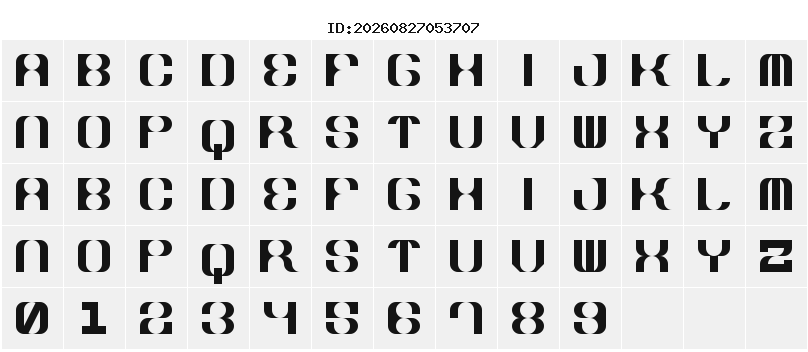
5Winter Sans Preview
• Font Name: 5Winter Sans
• Designer: Noah - 10 year old typomaniac
About 5Winter Sans.ttf
5Winter Sans.ttf is a modern, elegant sans-serif font designed for ultimate readability and visual harmony. Perfect for branding, headlines, web design, and print materials.